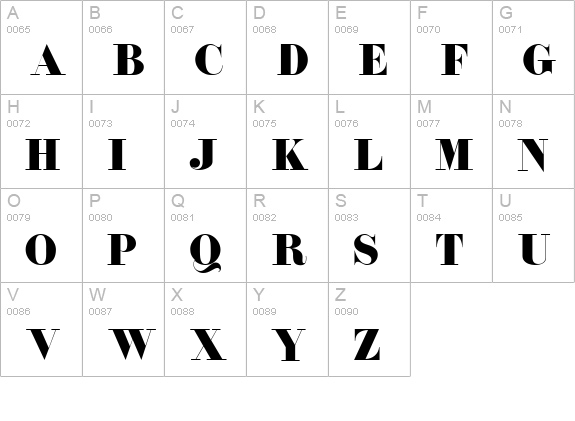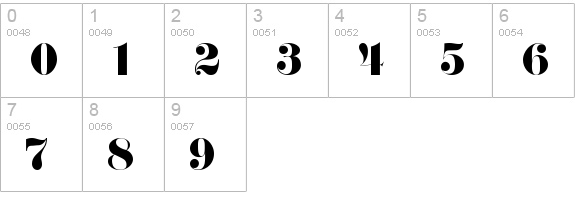
FirenzeITC-Normal is the standard, neutral variant in the FirenzeITC typeface family \xE2\x80\x94 well suited to general body text, paragraphs, and standard typographic work.
FirenzeITC-Normal is a stylish and elegant font that exudes sophistication and professionalism. With its clean lines and classic design, this font is perfect for a wide range of projects, from branding to editorial design. Its versatility makes it a popular choice among designers looking for a font that can easily adapt to different styles and moods. The best part about FirenzeITC-Normal is that it is completely free to download at FontsMarket.com. This means that you can add this beautiful font to your collection without having to worry about any additional costs. Whether you're working on a personal project or a client's design, FirenzeITC-Normal is sure to elevate your work and give it a touch of refinement. Don't miss out on this opportunity to enhance your designs with FirenzeITC-Normal. Download it for free today at FontsMarket.com and start creating stunning visuals that stand out from the crowd.